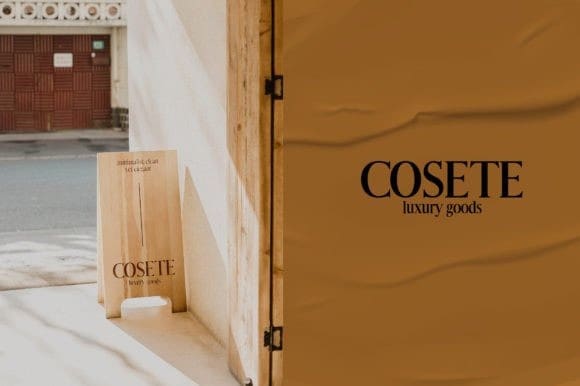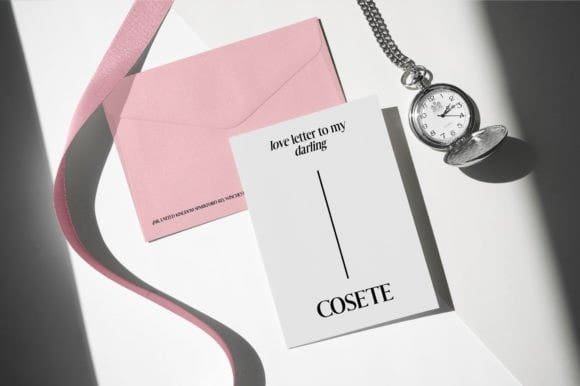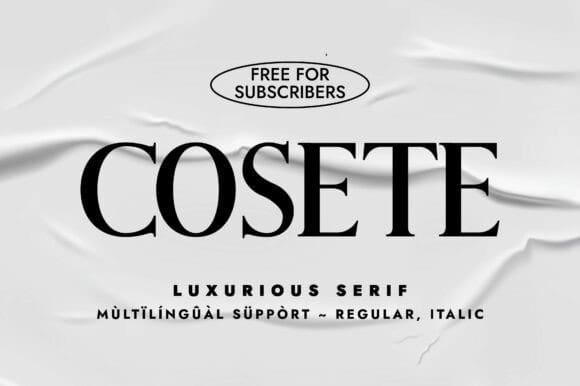
Cosete Font
Cosete Font is a stylish, modern, and luxurious serif font that will effortlessly add some nice elegant touches to any project you are working on. It is perfect for packaging, cosmetics, quotes, social media posts, and many more. Add it to your library, and create spectacular designs with ease!